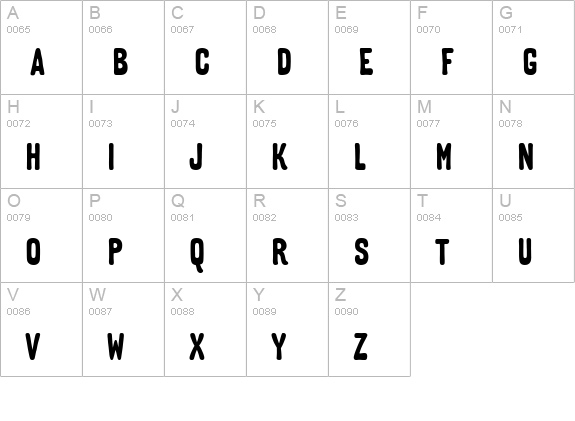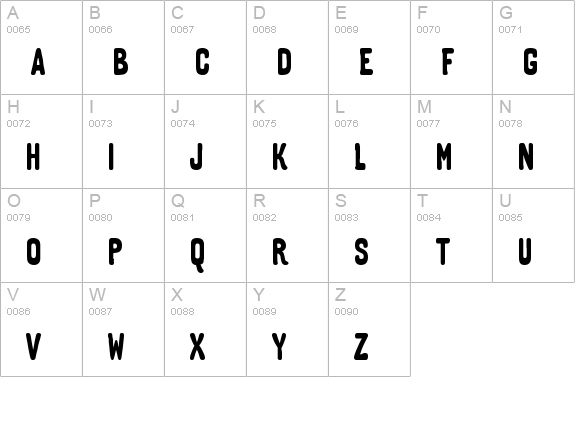
TLMoulinRougeSolide Font Details
Introducing TLMoulinRougeSolide, a stunning and versatile font that is bound to captivate and inspire. With its elegant and timeless design, this font is perfect for a wide range of creative projects, from branding and logos to invitations and packaging. TLMoulinRougeSolide boasts a unique combination of boldness and sophistication, making it a true standout in any visual composition. Its clean lines and intricate letterforms exude a sense of modernity, while its solid structure adds a touch of strength and stability. What sets TLMoulinRougeSolide apart is not only its impeccable aesthetics but also its accessibility. This font is freely available to download at FontsMarket.com, allowing designers, artists, and enthusiasts alike to effortlessly incorporate its beauty into their work. Embrace the freedom to express your creativity with TLMoulinRougeSolide. Whether you're designing a sleek and professional business card or crafting a whimsical and playful poster, TLMoulinRougeSolide has you covered. Its wide range of characters and glyphs ensure that you have all the tools you need to bring your ideas to life, while its seamless compatibility with various design software guarantees a seamless workflow. Embrace the allure and charm of TLMoulinRougeSolide. Let its timeless elegance and bold presence elevate your designs to new heights. Download this remarkable font for free at FontsMarket.com and embark on a creative journey that knows no bounds.